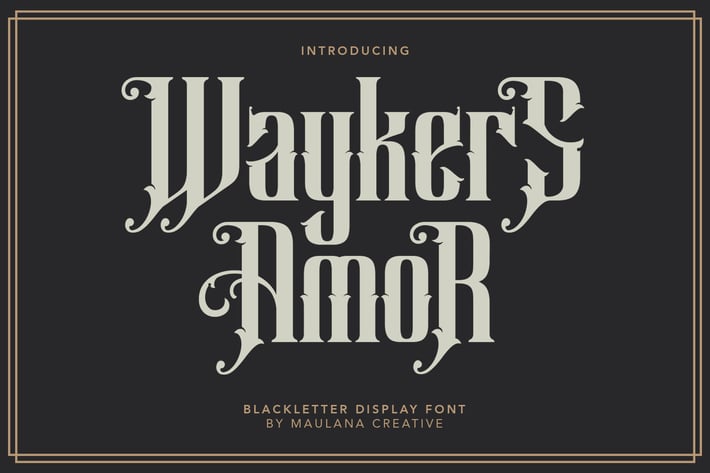
Waykers Amor Blackletter Font
Introducing Waykers Amor Blackletter Font
Waykers Amor Blackletter Font is a handmade Modern Victorian handlettering, which is combining modern and classic typography with some awesome alternates. Yes we back to early 1800s, bring classic touch on this decade.